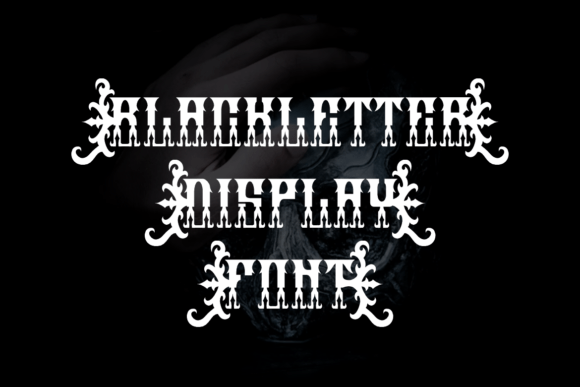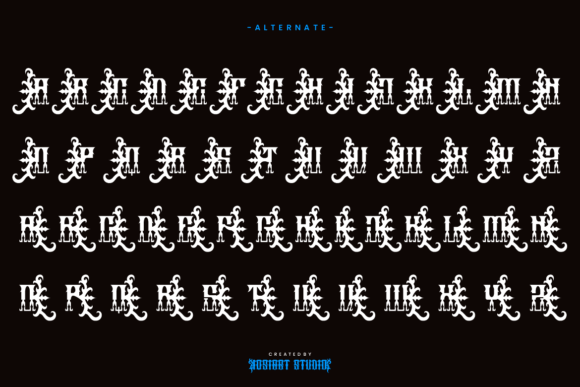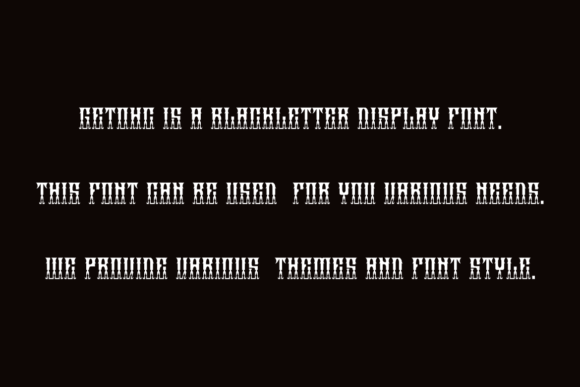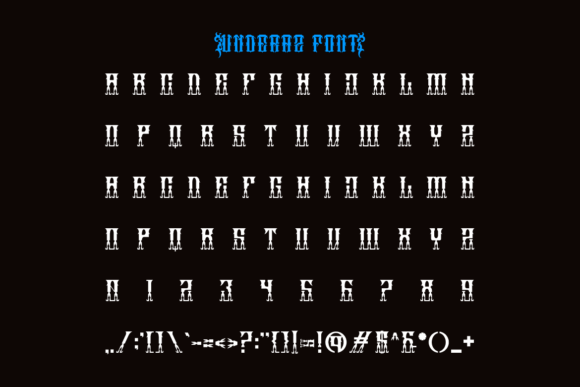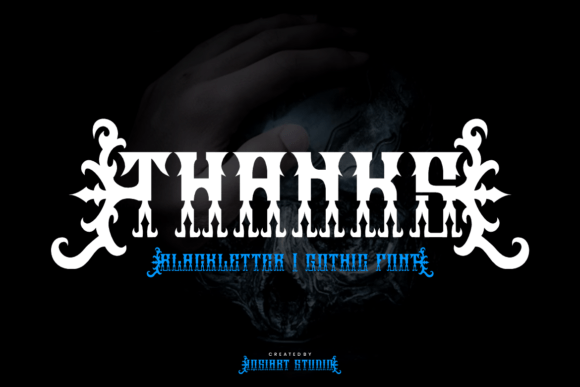
Introduction to Getohc Font
Getohc: A Blackletter Gothic Font with a Modern Edge Getohc is a powerful and intricate blackletter gothic font that brings a dramatic, medieval aesthetic to contemporary designs.
Characterized by its sharp, angular serifs and distinctive calligraphic style, this font is ideal for projects that require a strong sense of history, darkness, or rebellion Getohc is a perfect choice for designers looking to create a memorable and bold visual identity.
Key Features of Getohc Font